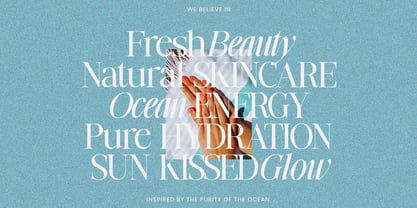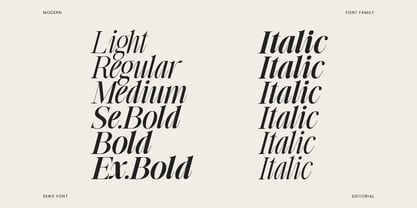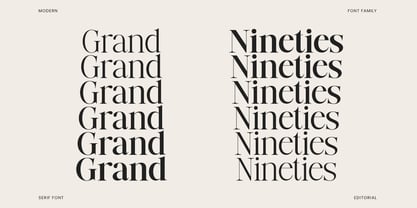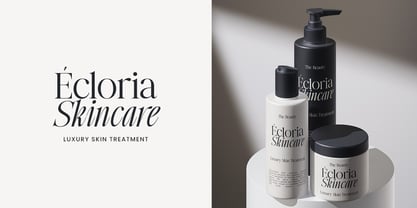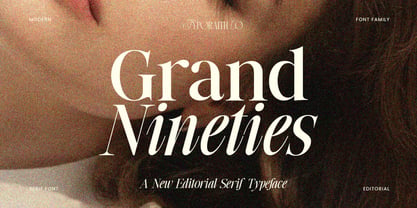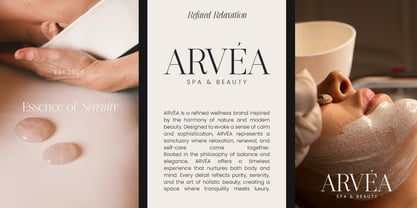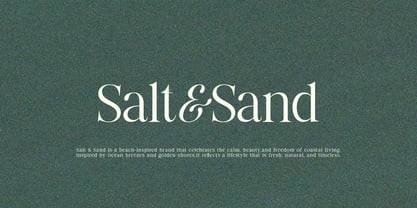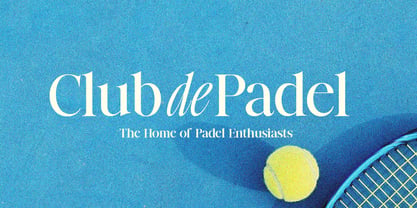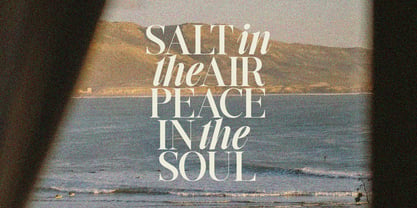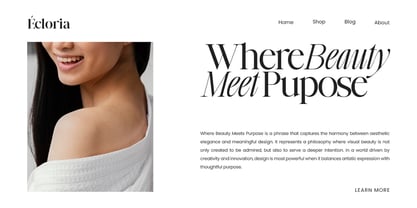
Grand Nineties
by Typoraith Co
The Grand Nineties Font Family was designed by Rendy Riyananda and published by Typoraith Co. Grand Nineties contains 12 styles and family package options. More about this family
Grand Nineties is a modern editorial serif typeface designed to bring elegance, sophistication, and timeless beauty to your designs. Inspired by classic fashion magazines and high-end editorial layouts, this font blends refined serif shapes with graceful italic curves to create a luxurious and stylish look. With its balanced proportions and distinctive letterforms, Grand Nineties works beautifully for branding, fashion editorials, luxury packaging, beauty products, magazines, and modern logos. The combination of classic serif structure and contemporary details makes it perfect for projects that require both elegance and personality. Whether you're designing for a fashion brand, skincare packaging, magazine cover, or sophisticated logo, Grand Nineties delivers a premium editorial feel that elevates any visual composition. Features: Uppercase & Lowercase Elegant Italic Style Numbers & Punctuation Multilingual Support High-end editorial aesthetic Grand Nineties is the perfect choice for designers who want to create refined, stylish, and modern typography with a luxurious editorial touch.
Designers: Rendy Riyananda
Foundry: Typoraith Co